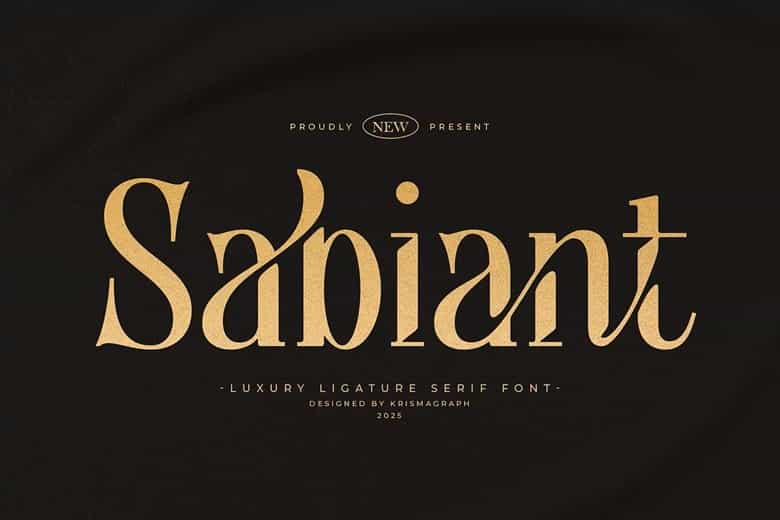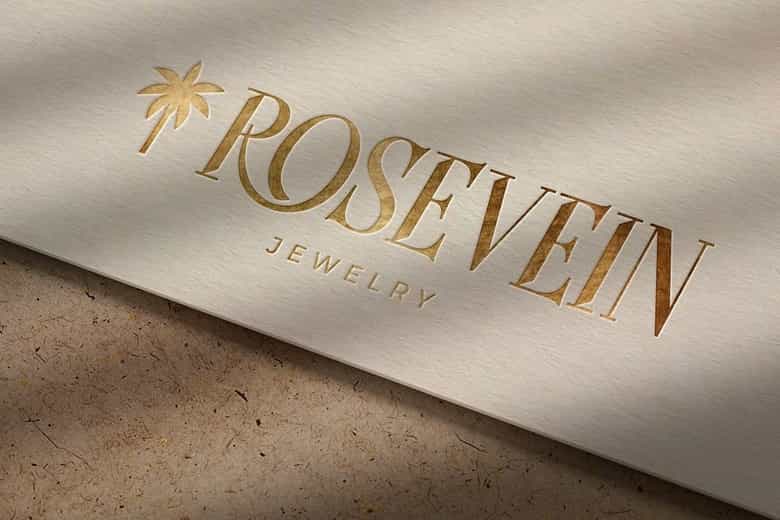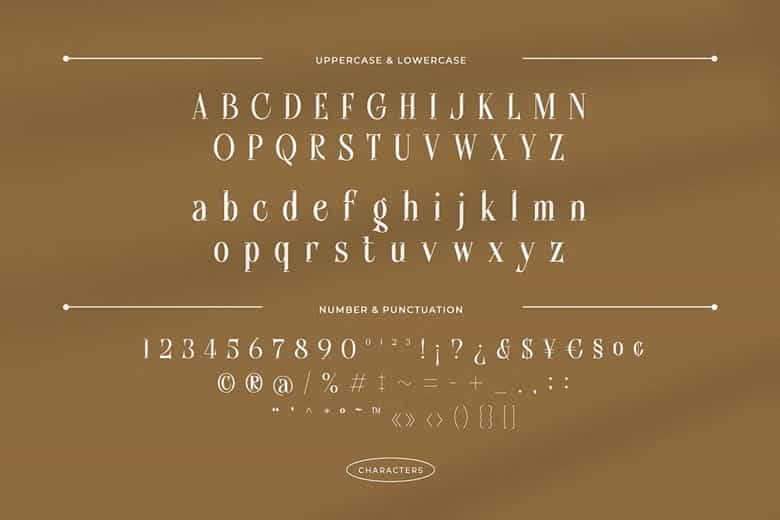
Sabiant is a luxurious ligature serif typeface which is designed to exude nostalgic style and superb sophistication. Sabiant was developed in beautiful curves, highly prominent serifs and most petite ligature features and hence, the ideal combination of traditional and newer typographical expressions can be seen. Sabiant will work well in branding endeavors, editorial design, upscale packaging, wedding paper and high-end logo design.